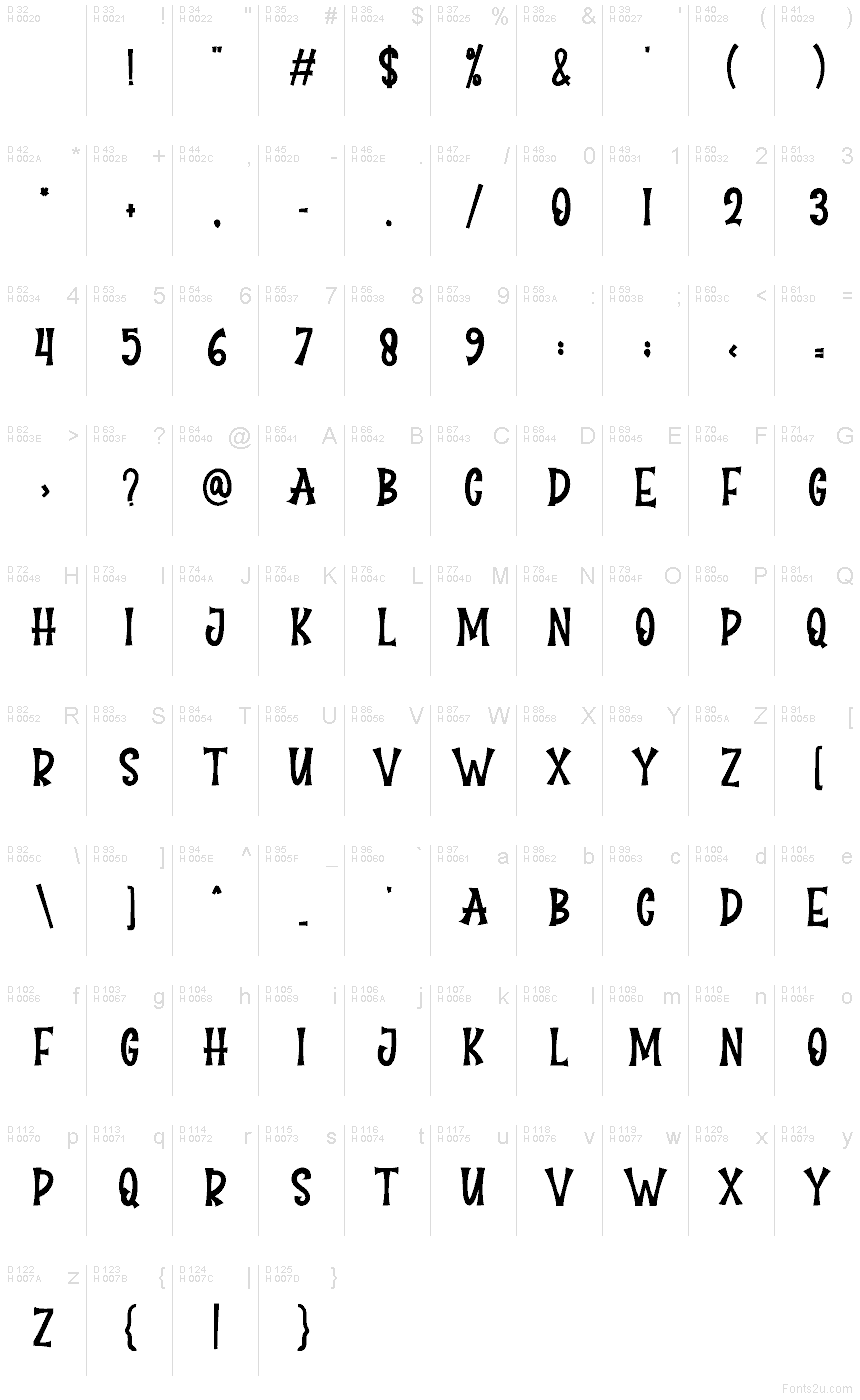
Ghost Festival
Ghost Festival font by Scratchones is a free Halloween display font that leans into the spooky season with tall, wiry letters, crooked flares, and inky, hand-cut edges. The rhythm feels like flickering candlelight—uneven on purpose—so headlines jump out with a playful chill rather than full-on gore. It captures the mischief of trick-or-treat night: lively, theatrical, and a little uncanny.
Using Ghost Festival, you’ll nail event posters, party invites, haunted house signage, themed social posts, candy or cocktail labels, YouTube thumbnails, and seasonal window displays. This free font loves big sizes and loose tracking; try it reversed in white on charcoal for extra bite. Pair it with a clean condensed sans for body copy to keep the scares legible and the mood electric.